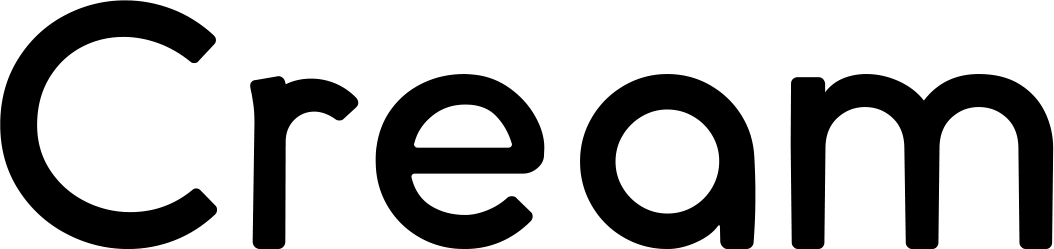
Cream Font
It would be very amazing to enrich your typography with a modern touch of the san serif font to put away all limitations, think creatively, and write specifically. Luckily, Cream font arrives with a complete set of alphabets to bring enjoyment and highlight your typography design of any website, product packaging, games, headers, urban, and more with its friendly and approachable vibes.
Cream is suitable for continuous text through it’s beautifully modulated letters and balanced stroke width. With more than 560 glyphs, you can use cream in almost every language on the basis of the latin alphabet. The full version also has optimized ligatures for fb, fk and similar ones. You can use the three extra styles for a unique eyecatcher.